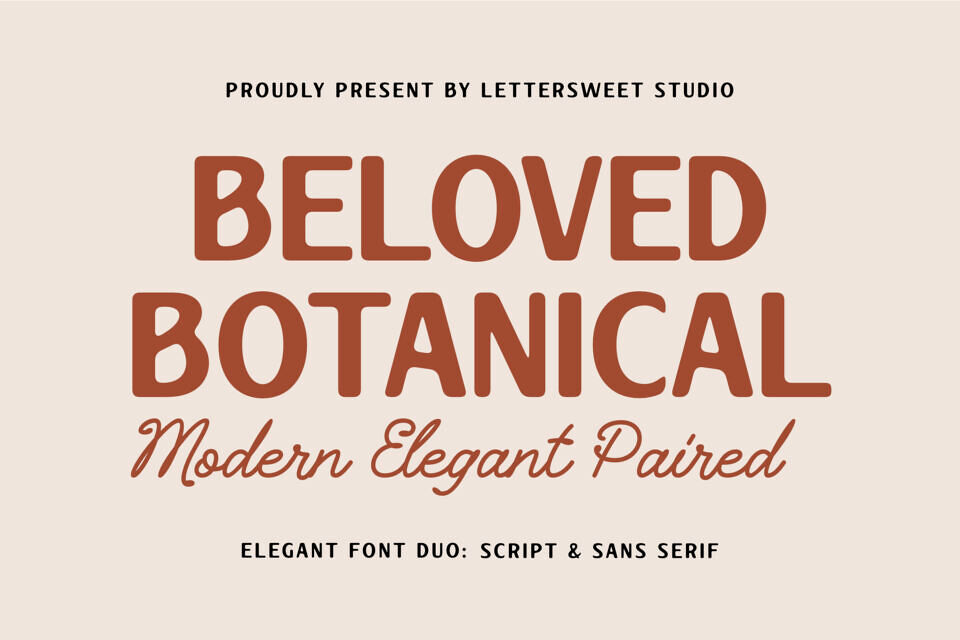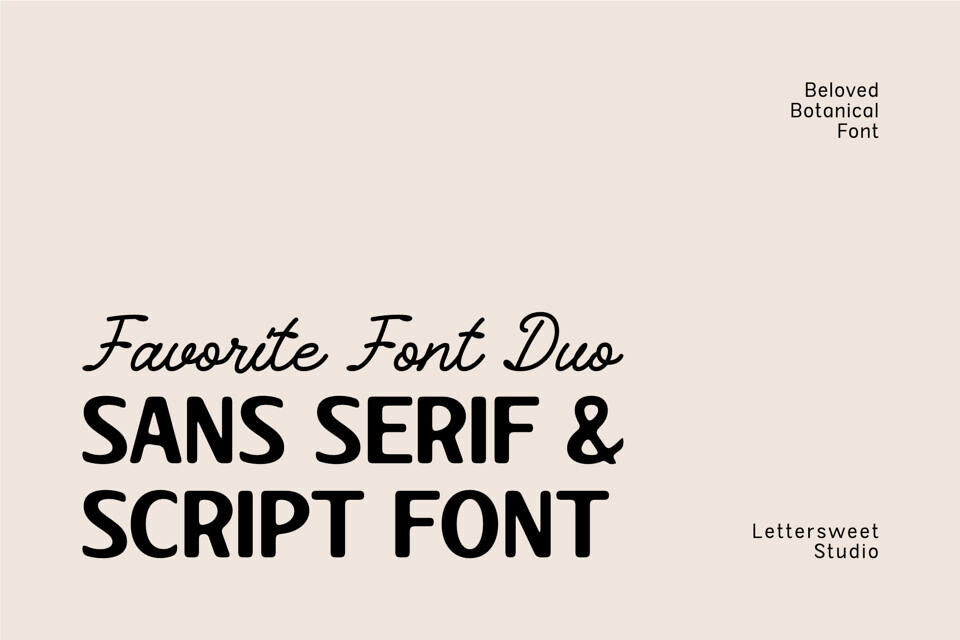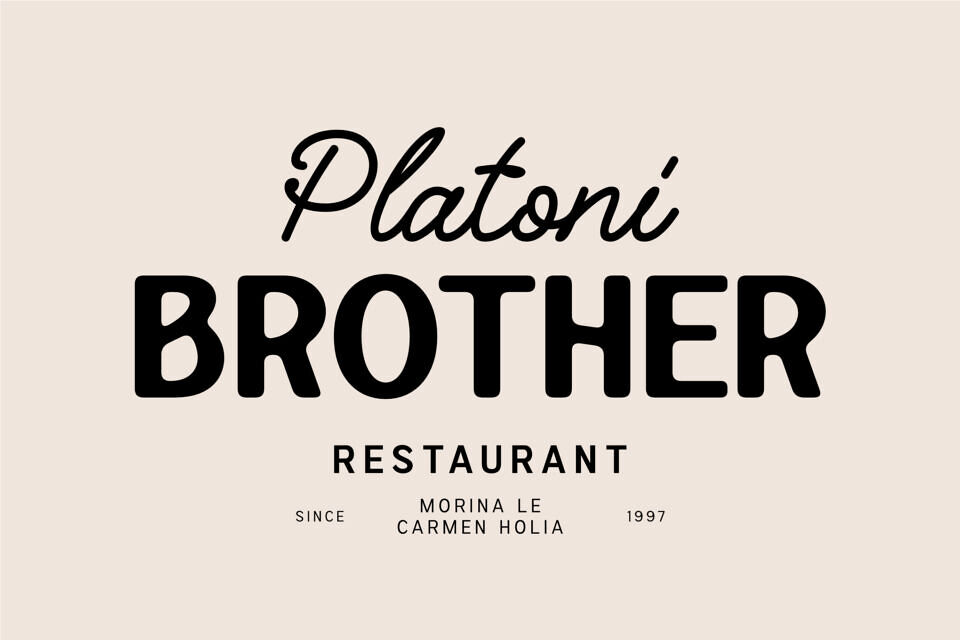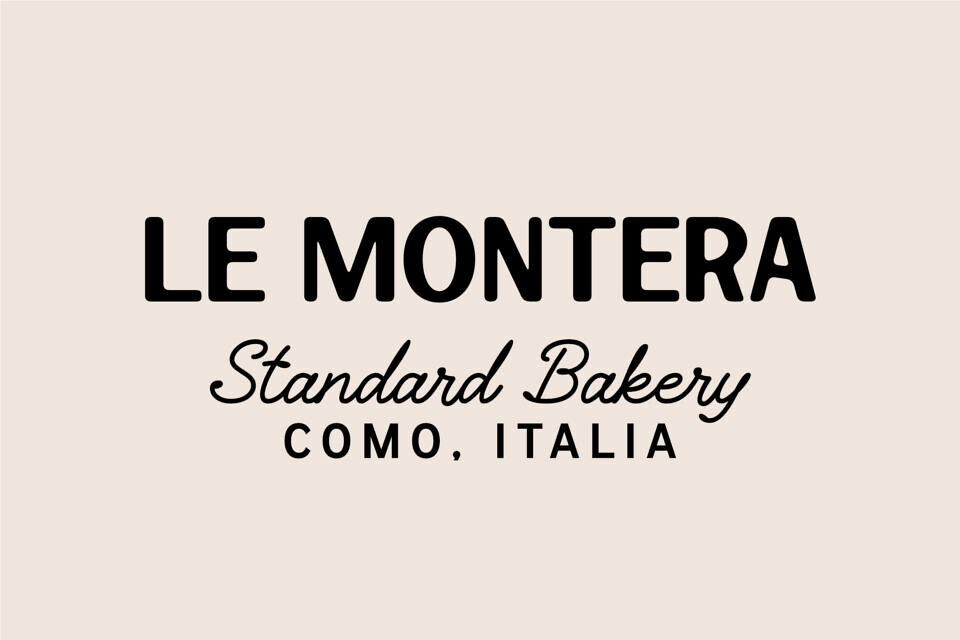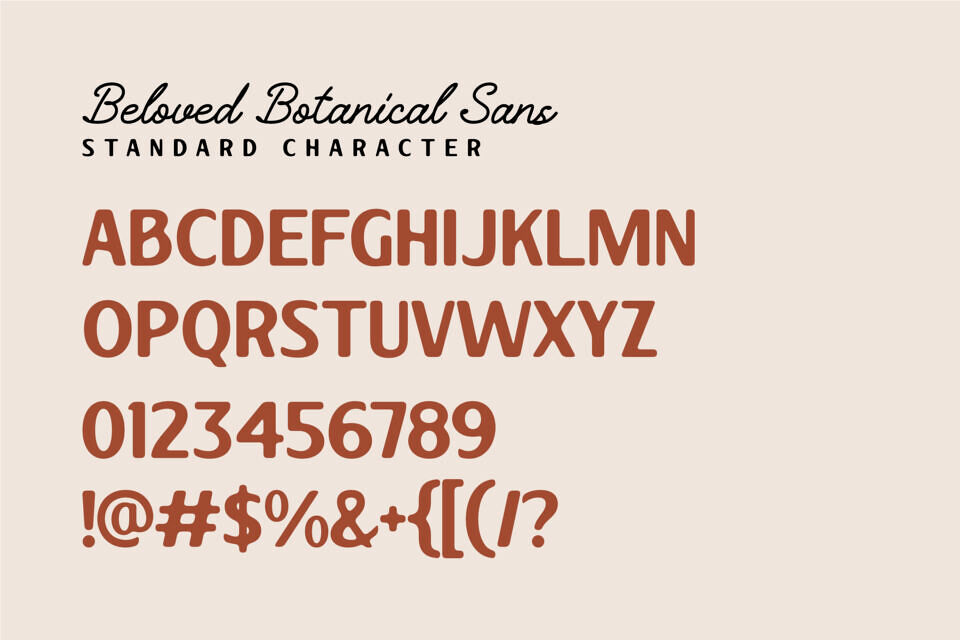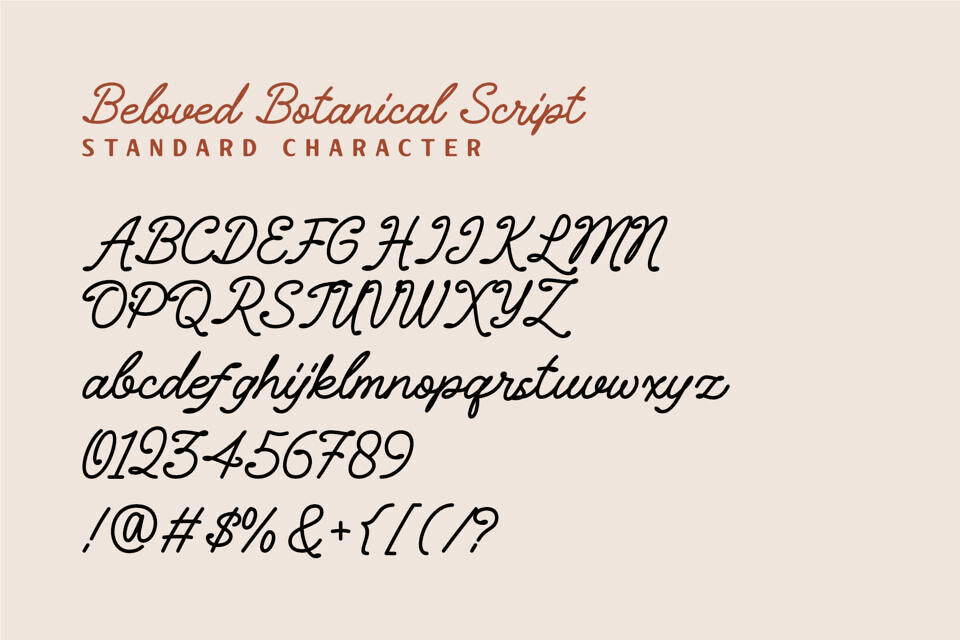
Beloved Botanical Font
Beloved Botanical Sans Font
Beloved Botanical is a sophisticated font duo crafted to bring effortless elegance into your design. Combining a bold, modern sans serif with a flowing, natural script, this pair creates a striking contrast that feels both refined and organic.
The clean sans serif gives structure and readability, while the script adds a personal, emotional touch—perfect for creating designs that feel both professional and human. Whether you’re designing for wedding invitations, beauty brands, boutique packaging, café logos, or social media content, Beloved Botanical adapts beautifully across styles—from minimal and modern to romantic and luxurious.